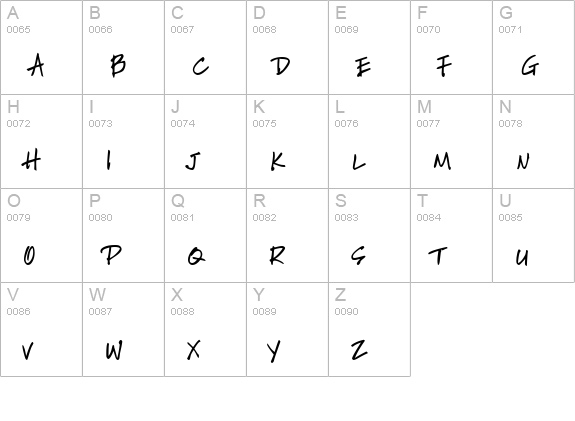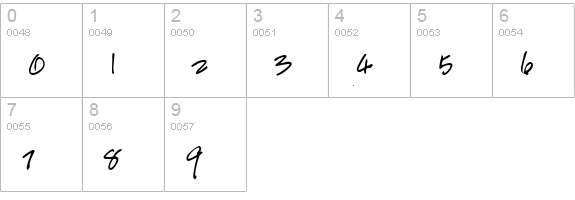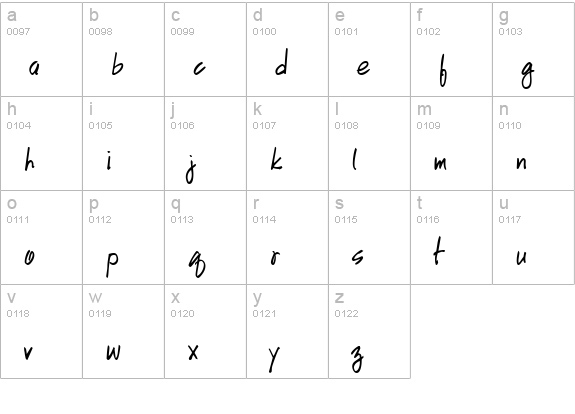
HandScriptLefty Bold Italic Font Details
HandScriptLefty Bold Italic is a strong, high-contrast, italic variant in the HandScriptLefty typeface family \xE2\x80\x94 well suited to headlines, attention-grabbing titles, and strong calls-to-action.
HandScriptLefty Bold Italic is a visually stunning and unique font that effortlessly combines elegance and playfulness. Its bold and slanted strokes create a sense of dynamism and intrigue, while its hand-drawn aesthetic adds a touch of whimsy to any project. This font is perfect for those looking to make a bold statement or add a touch of creativity to their designs. The versatility of HandScriptLefty Bold Italic makes it suitable for a wide range of applications, including headlines, logos, branding materials, invitations, and much more. Its distinctive character shines through in both small and large sizes, ensuring that your message will be delivered with impact and style. What sets HandScriptLefty Bold Italic apart is not only its exceptional design, but also its availability. It is freely available to download at FontsMarket.com, making it accessible to anyone who wishes to add a touch of artistic flair to their creations. This font is a true gem for designers and creatives who appreciate the value of high-quality, freely accessible resources. Whether you're a professional graphic designer, a passionate hobbyist, or simply someone who appreciates beautiful typography, HandScriptLefty Bold Italic is a font that should not be overlooked. Its bold, italicized style and freely available nature make it a must-have addition to your font collection. Elevate your designs and captivate your audience with the enchanting charm of HandScriptLefty Bold Italic.